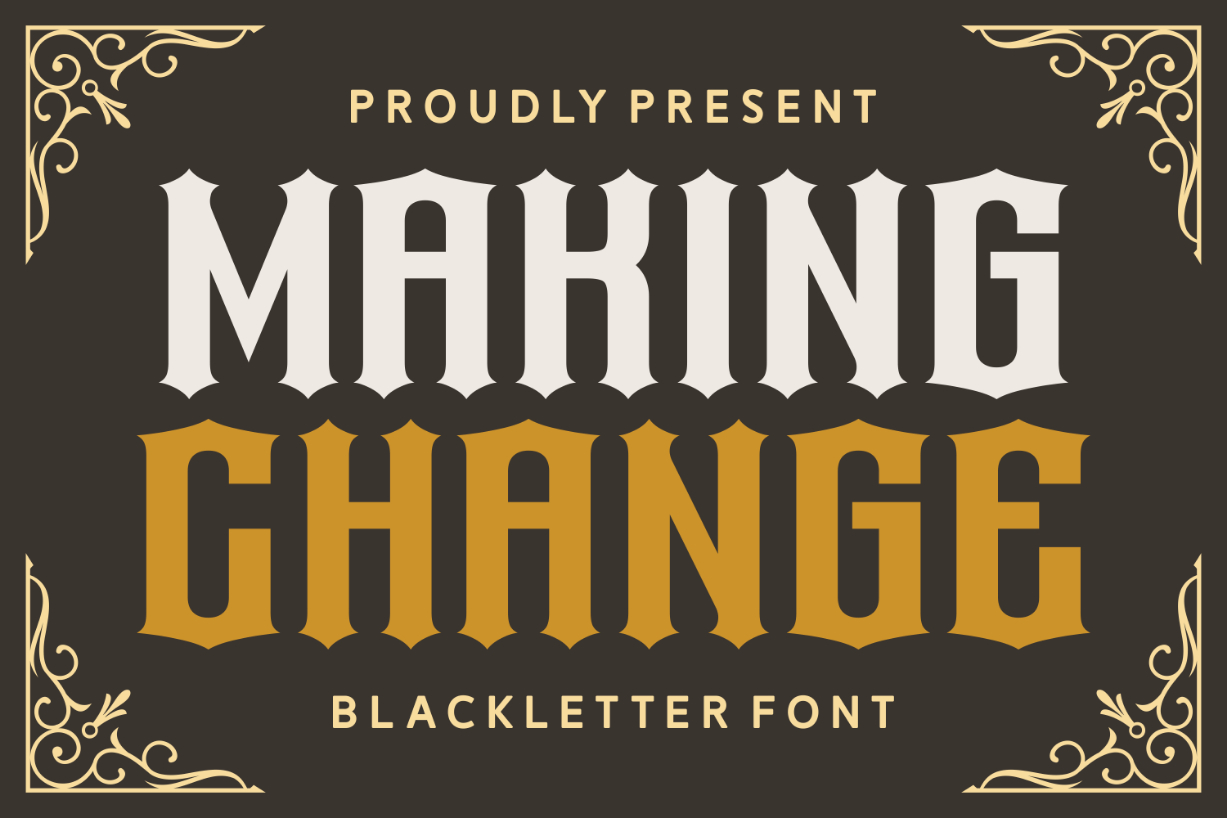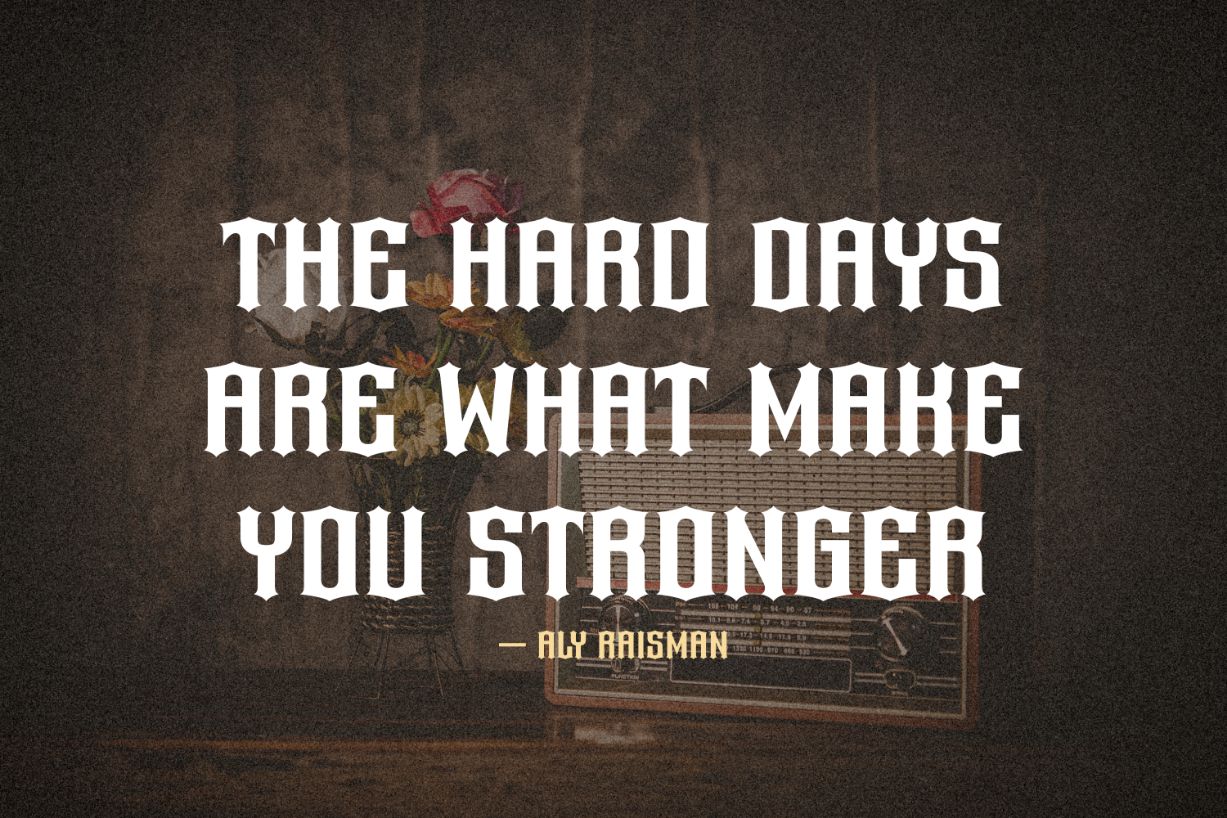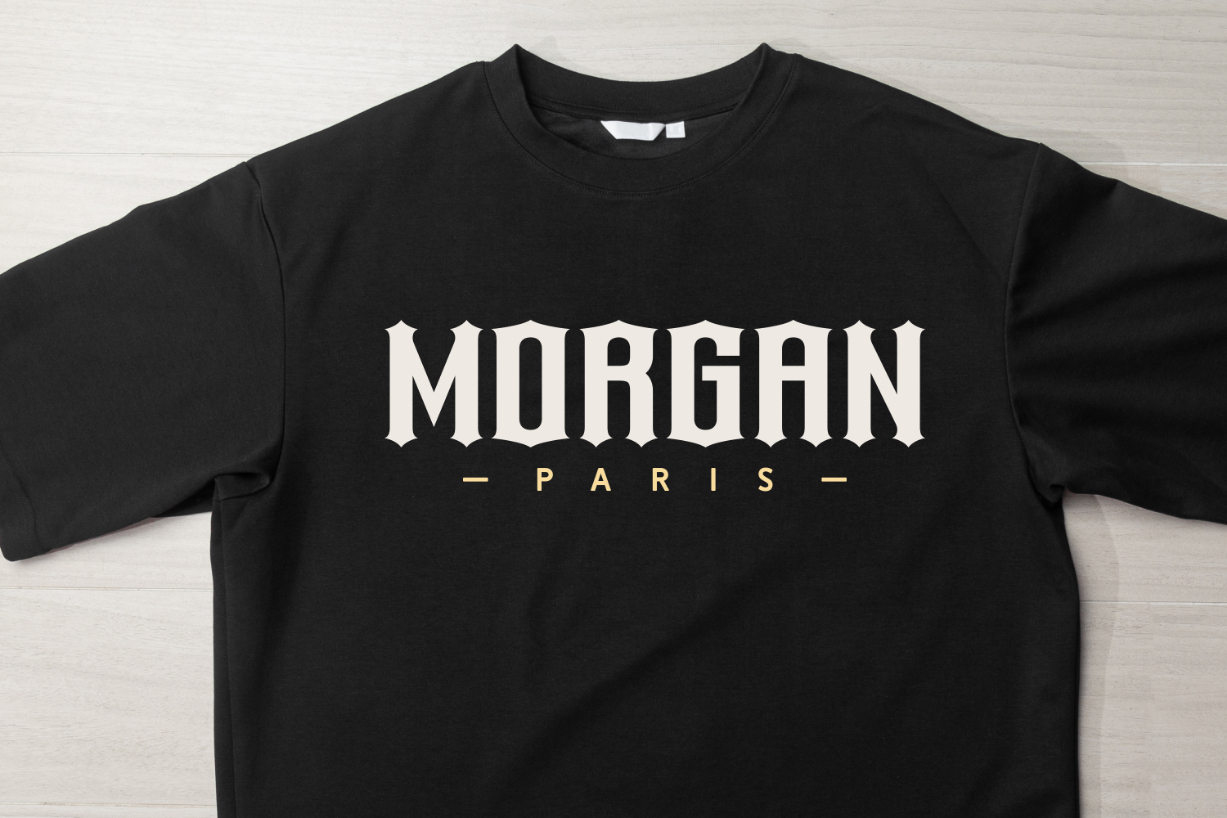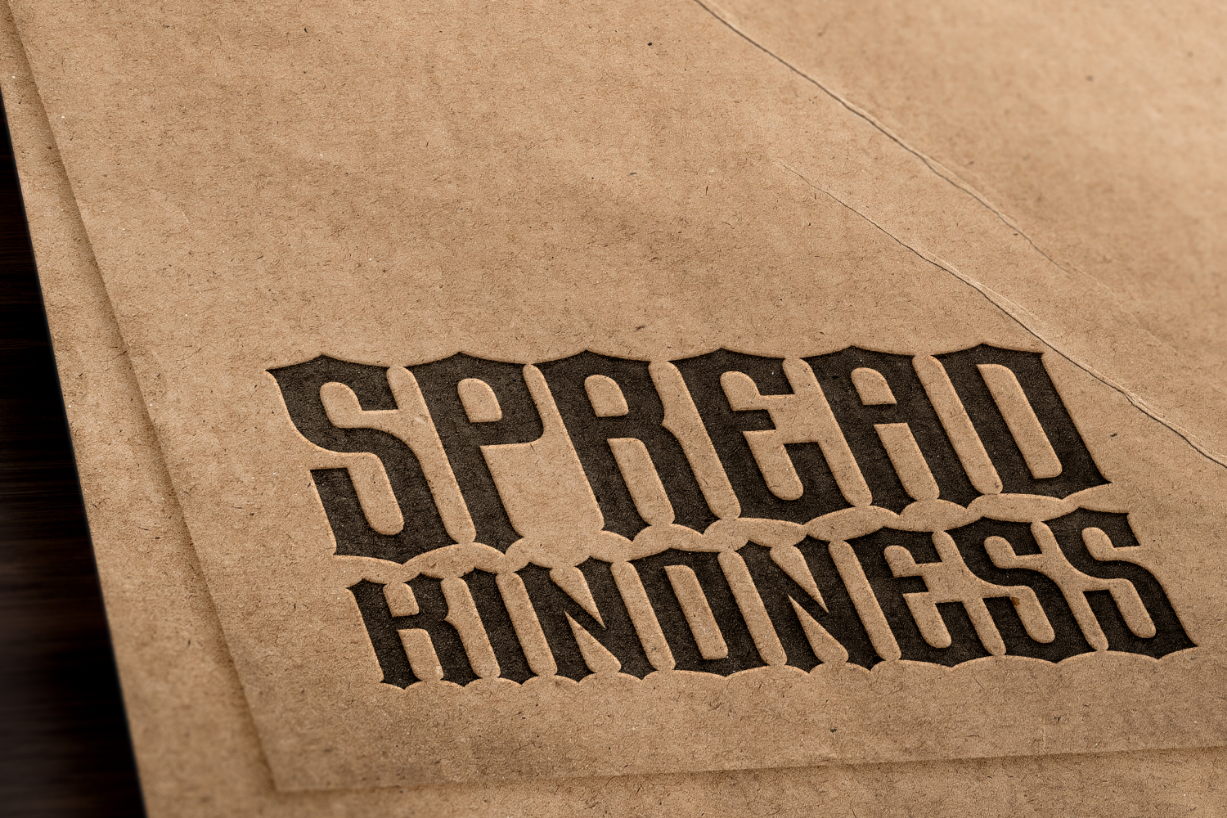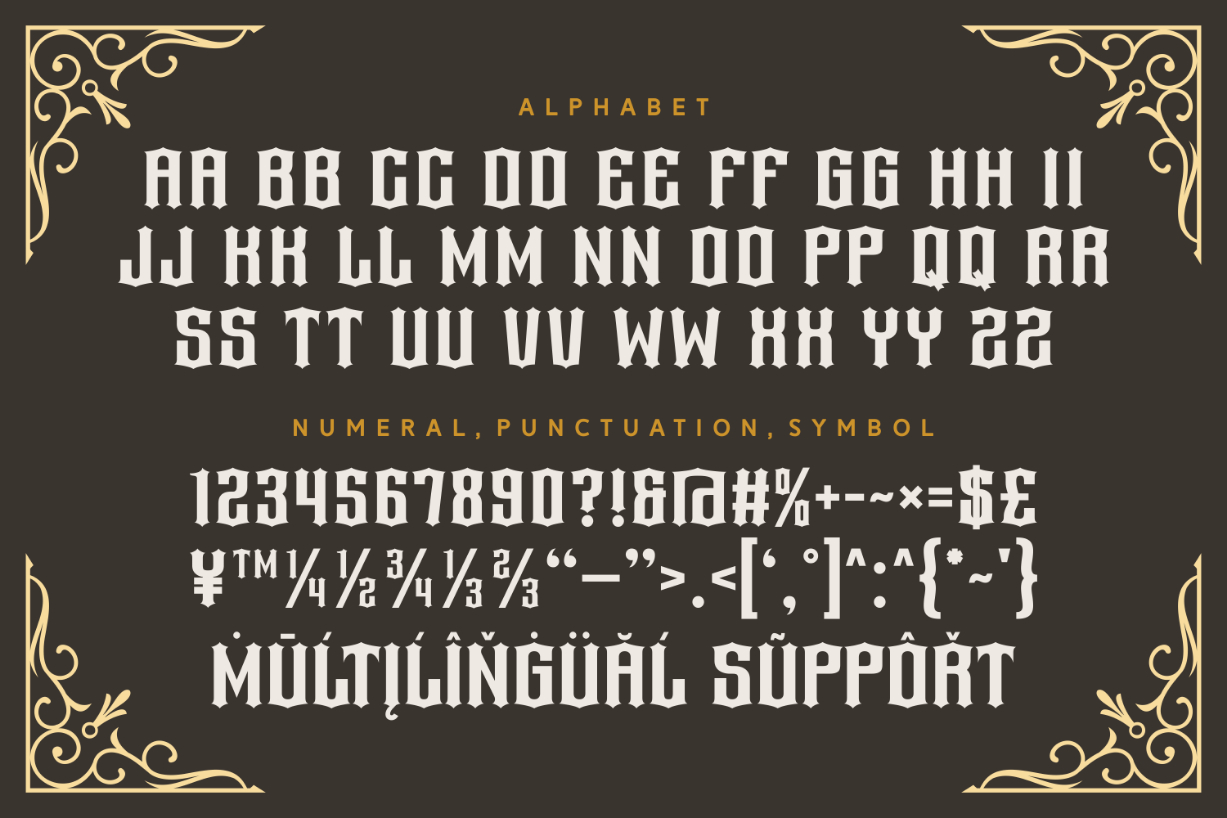
Making Change Font
About Making Change Font
Making Change is a unique and stylish blackletter font. This stunning typeface features a classy and distinctive aesthetic, making it ideal for creating memorable typography. Use it in your next creative project, and you will love the results!